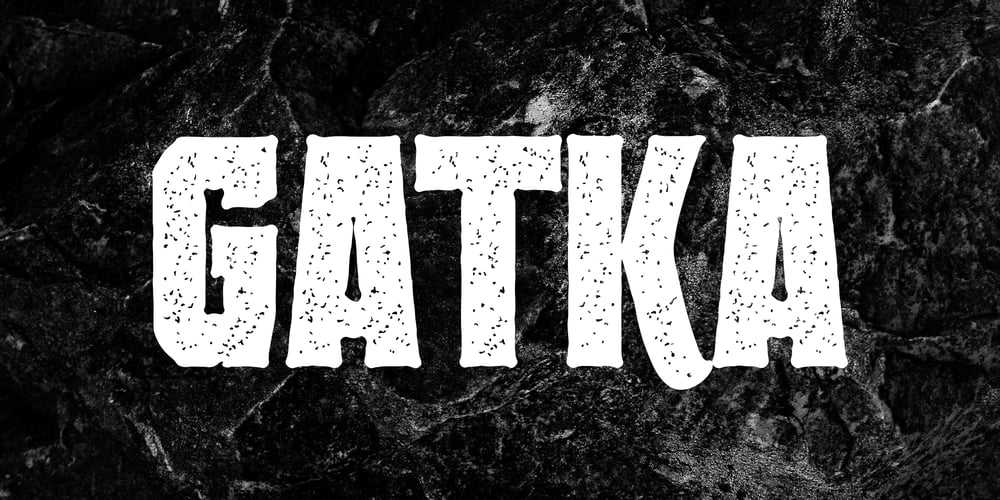
Gatka Font Family was designed by Muhammad Afif Ersya and published by Mevstory Studio. Gatka contains 1 styles and family package options. Gatka is a display-type , developed from scans of vintage letterpress and woodblock prints.Gatka evokes the original typographic Wild West, when letterforms were handmade, imperfect, and often mismatched, with various weights and styles jumbled together in controlled chaos.Perfect for editorial design, branding, and posters.Features: capitals only entire english alphabet, numerals, and punctuation If you have any questions, requests, or feedback, please contact